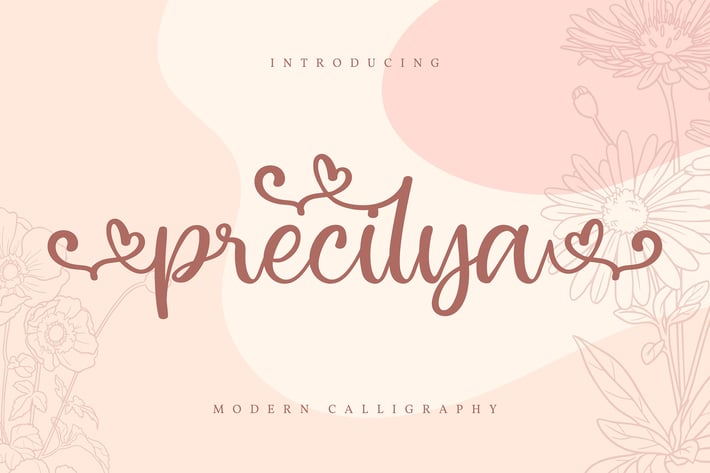
Precilya | Modern Calligraphy Font
Precilya | Modern Calligraphy Font with a calligraphy style, So beautiful on invitation like greeting cards, branding materials, business cards, quotes, posters, and more!